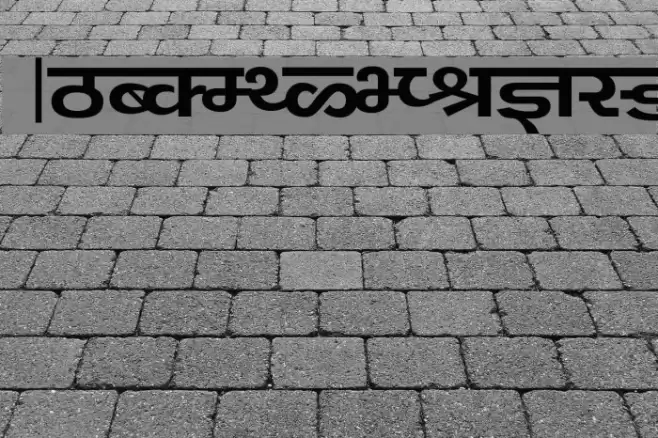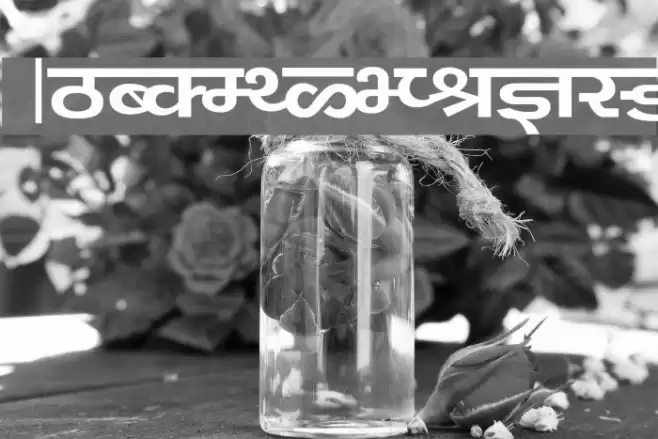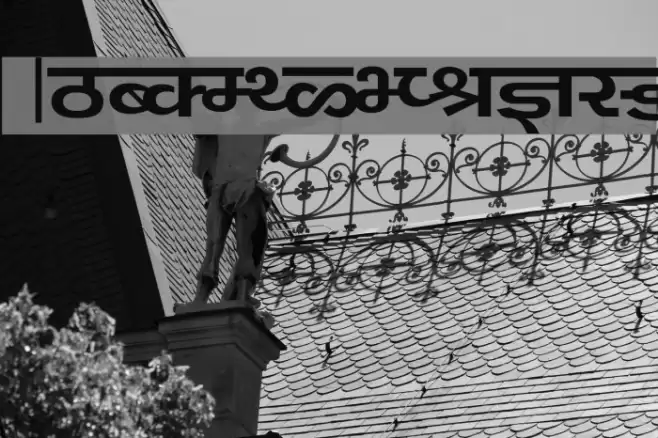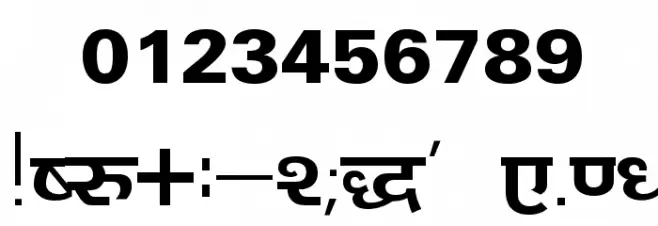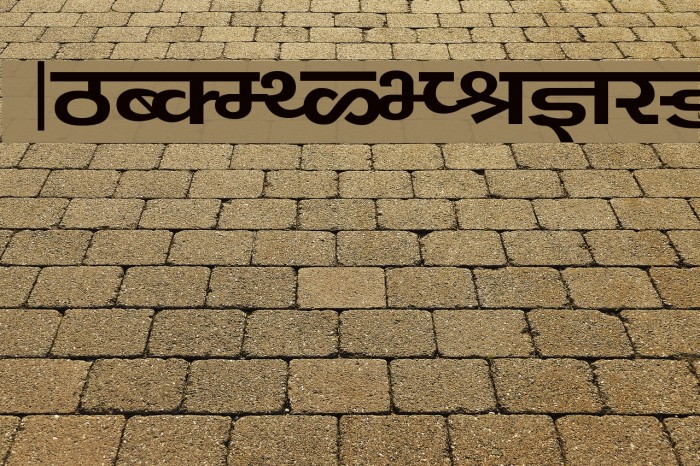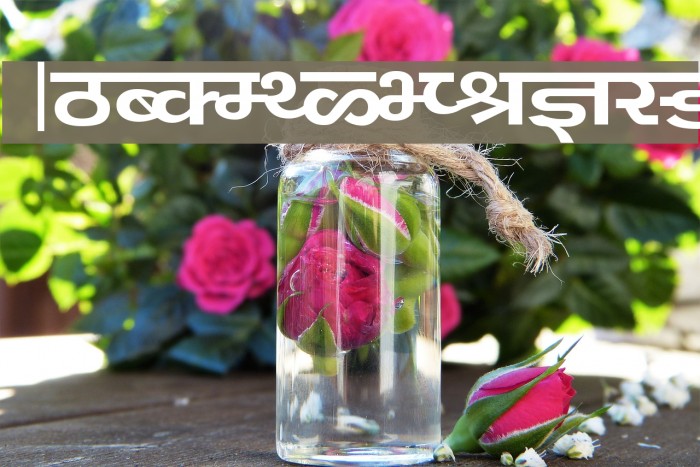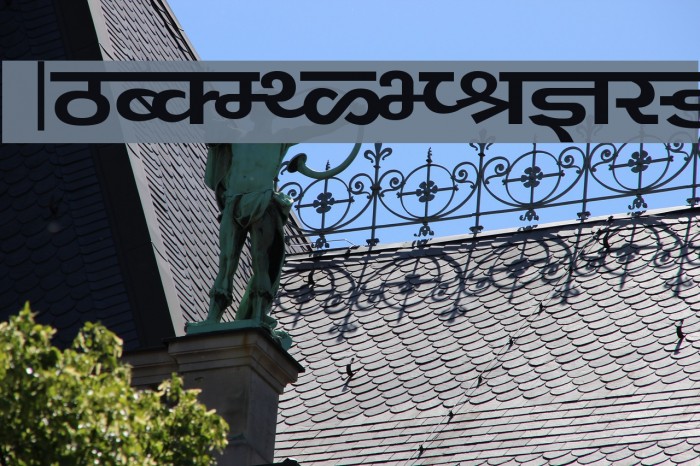
Kanika Font
Kanika Description
This font features a bold and striking Devanagari script, characterized by its thick strokes and strong presence. The characters are well-defined with a modern touch, making it suitable for impactful headlines and titles. The numerals are equally bold, ensuring consistency across different types of content. The special characters maintain the same weight and style, providing a cohesive look throughout. Its design is both functional and aesthetically pleasing, offering versatility for various applications.
A bold and modern Devanagari script with strong, thick strokes from Asian fonts.
- Proposed Projects: Ideal for use in headlines, posters, signage, and branding materials that require a strong visual impact.
- Use Case: Headlines, Posters, Signage